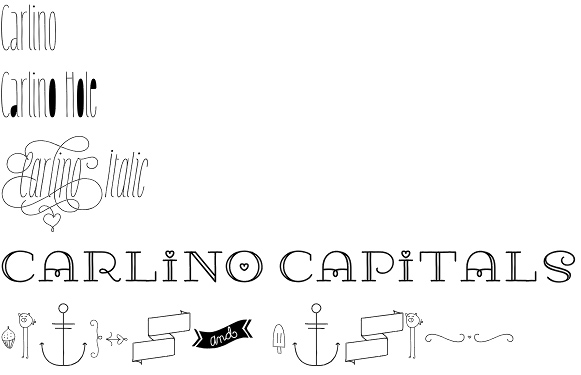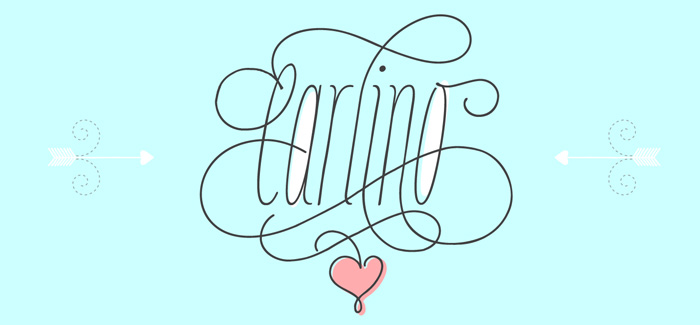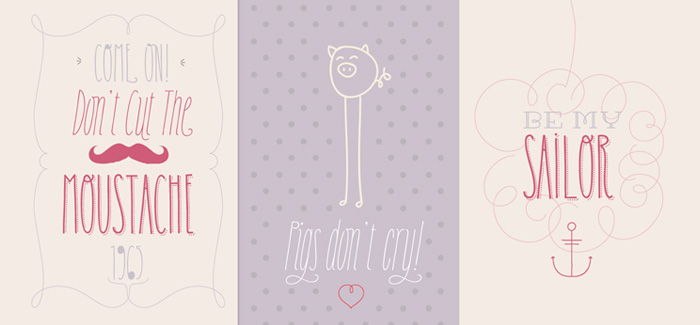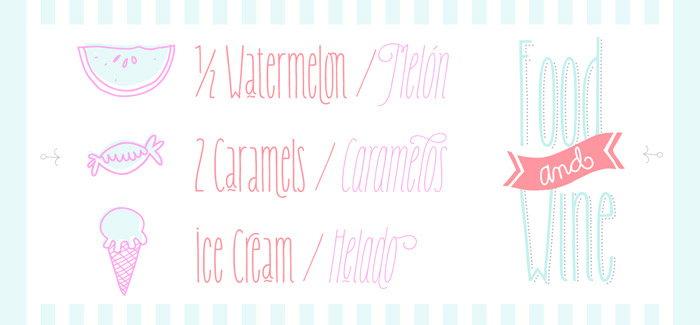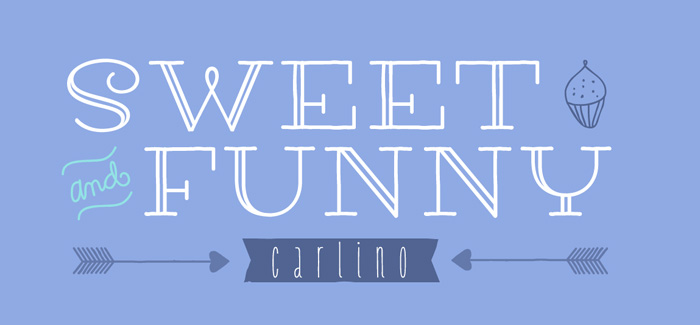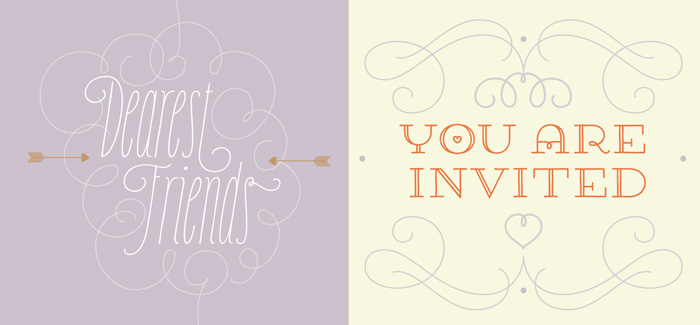
Carlino font
Carlino font is a multi-layered font including shades, holes and dots. It’s a contemporary typeface exclusively designed for stationery use. It’s loaded with lots of alternates and ligatures supporting both lower- and uppercase letters. All of them are Open-Type programmed, so the possibilities of having something unique are endless. The styles of Carlino font were made to work alone or all together with fantastic results! The way it works is so easy and friendly and you will enjoy it for sure – just type a word, then the same one set in another style and voila!
The font has also a lot of sweet ornaments to embellish your projects. Find inside: hearts, fleurons, party icons, flags, and the funniest animals.